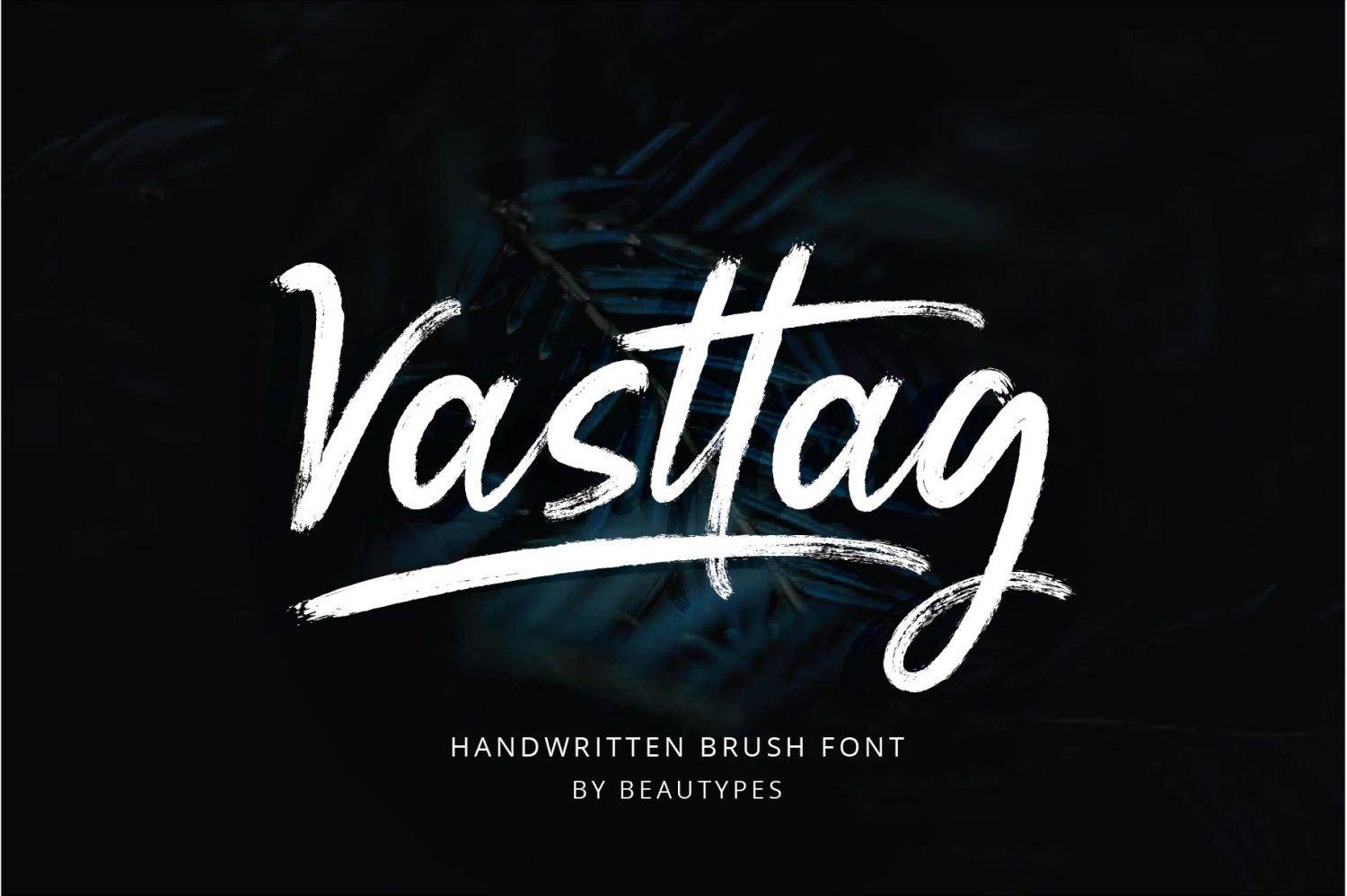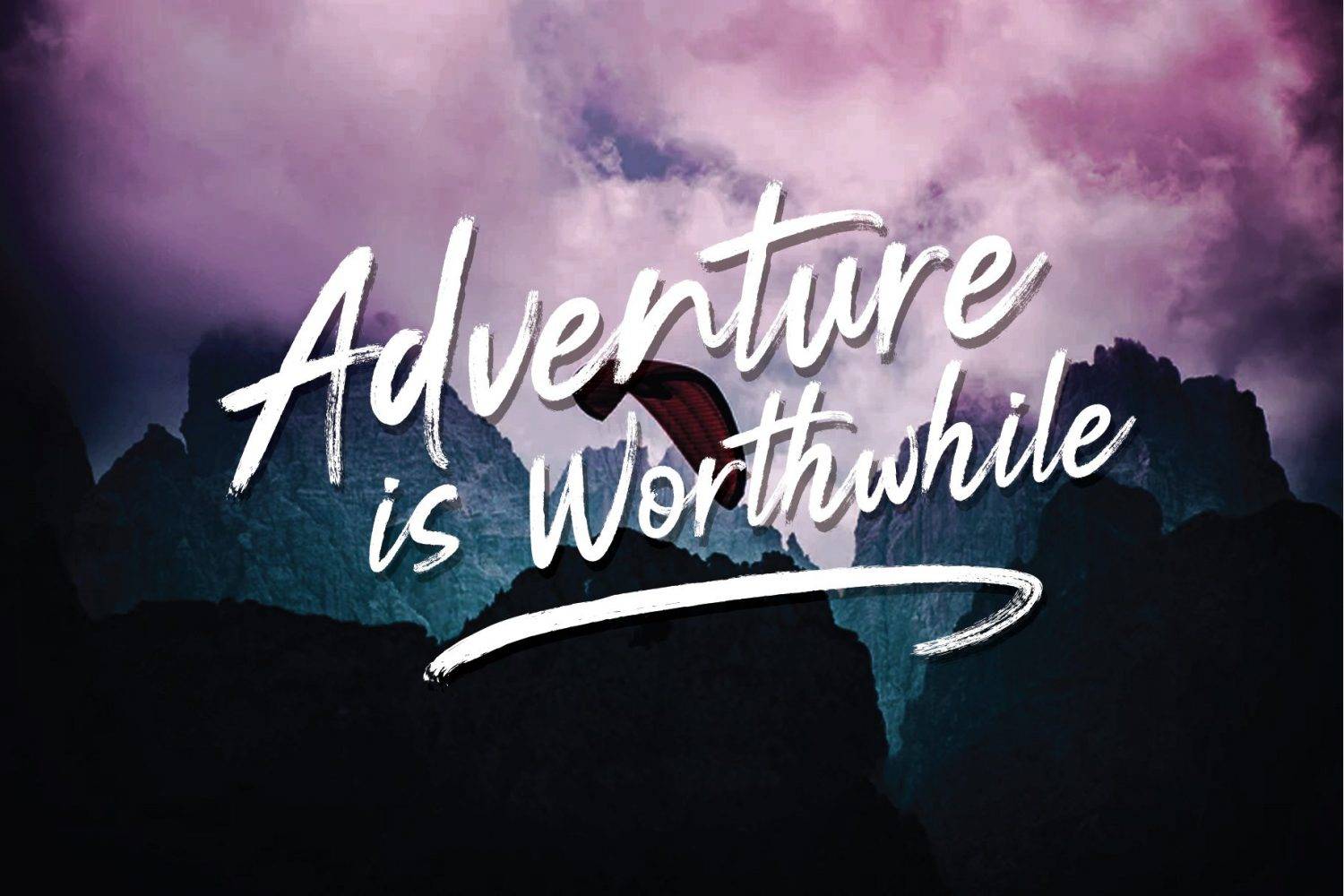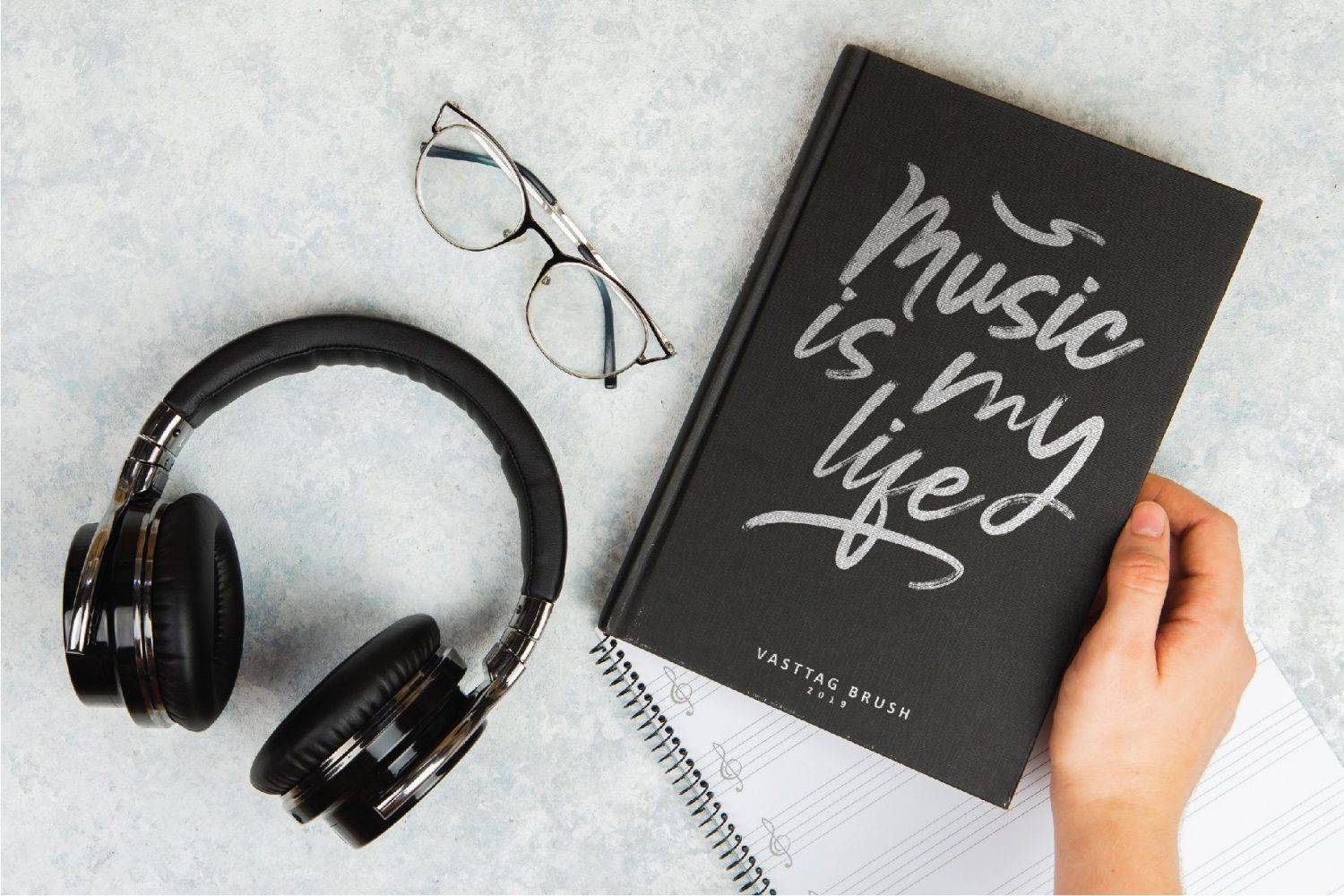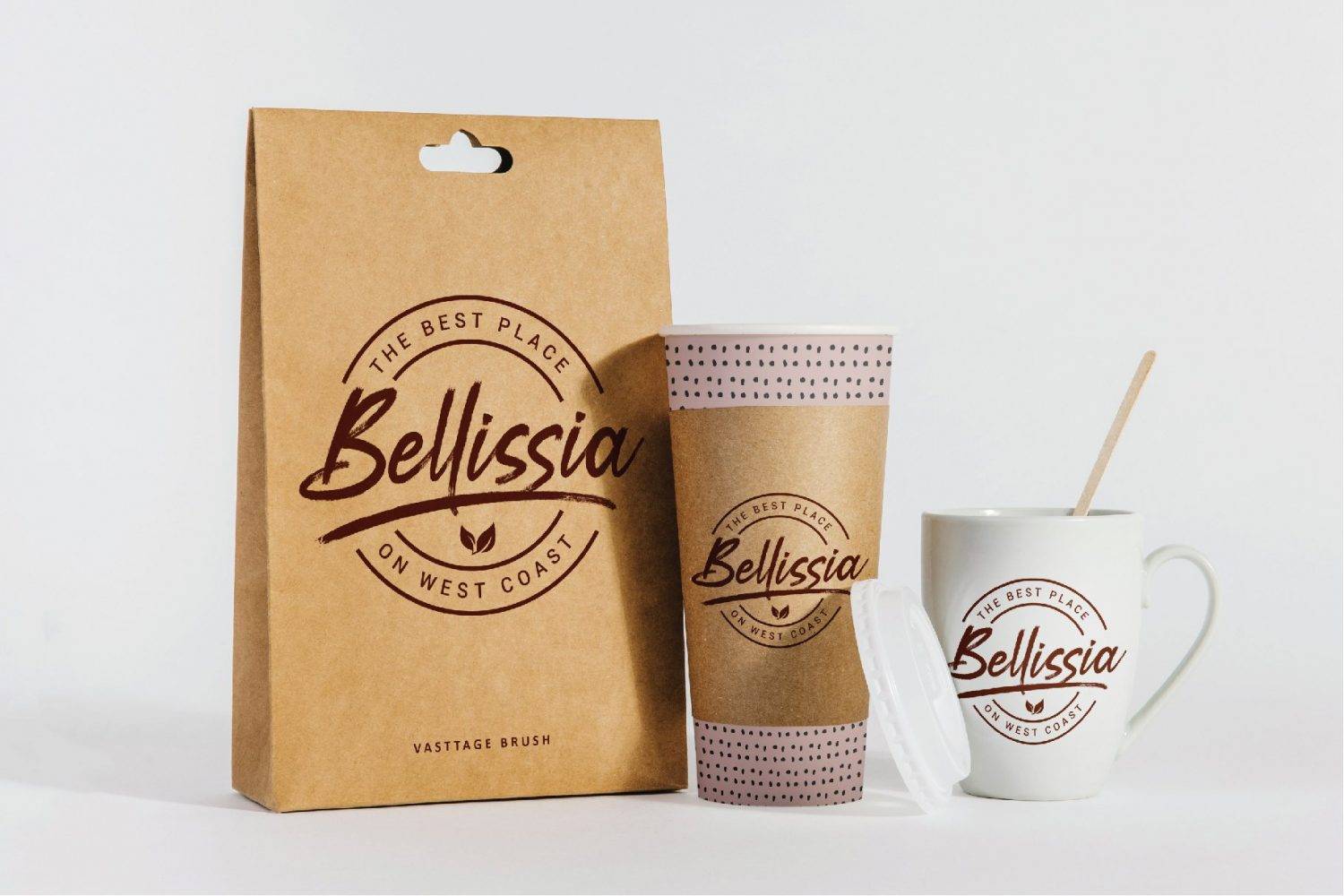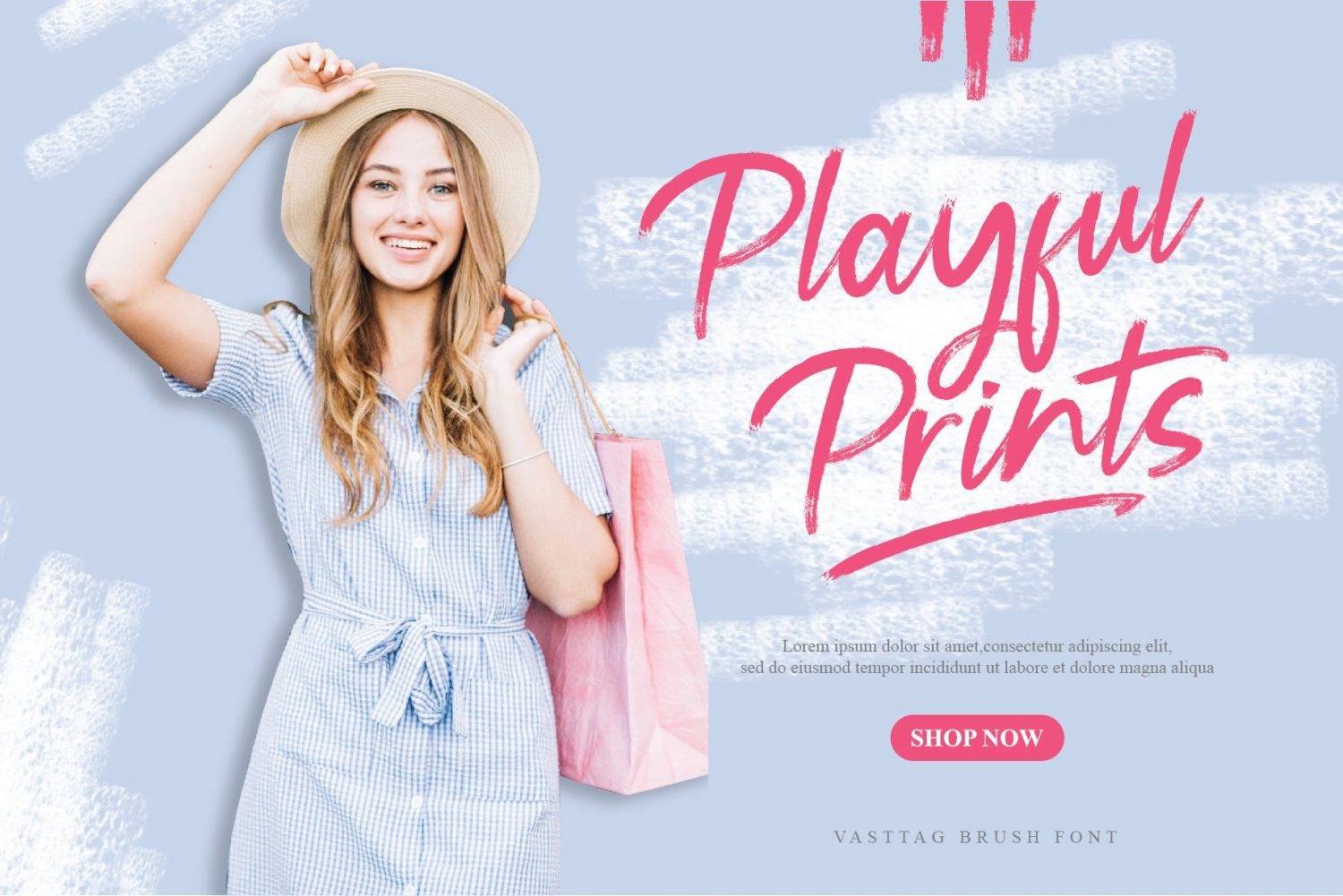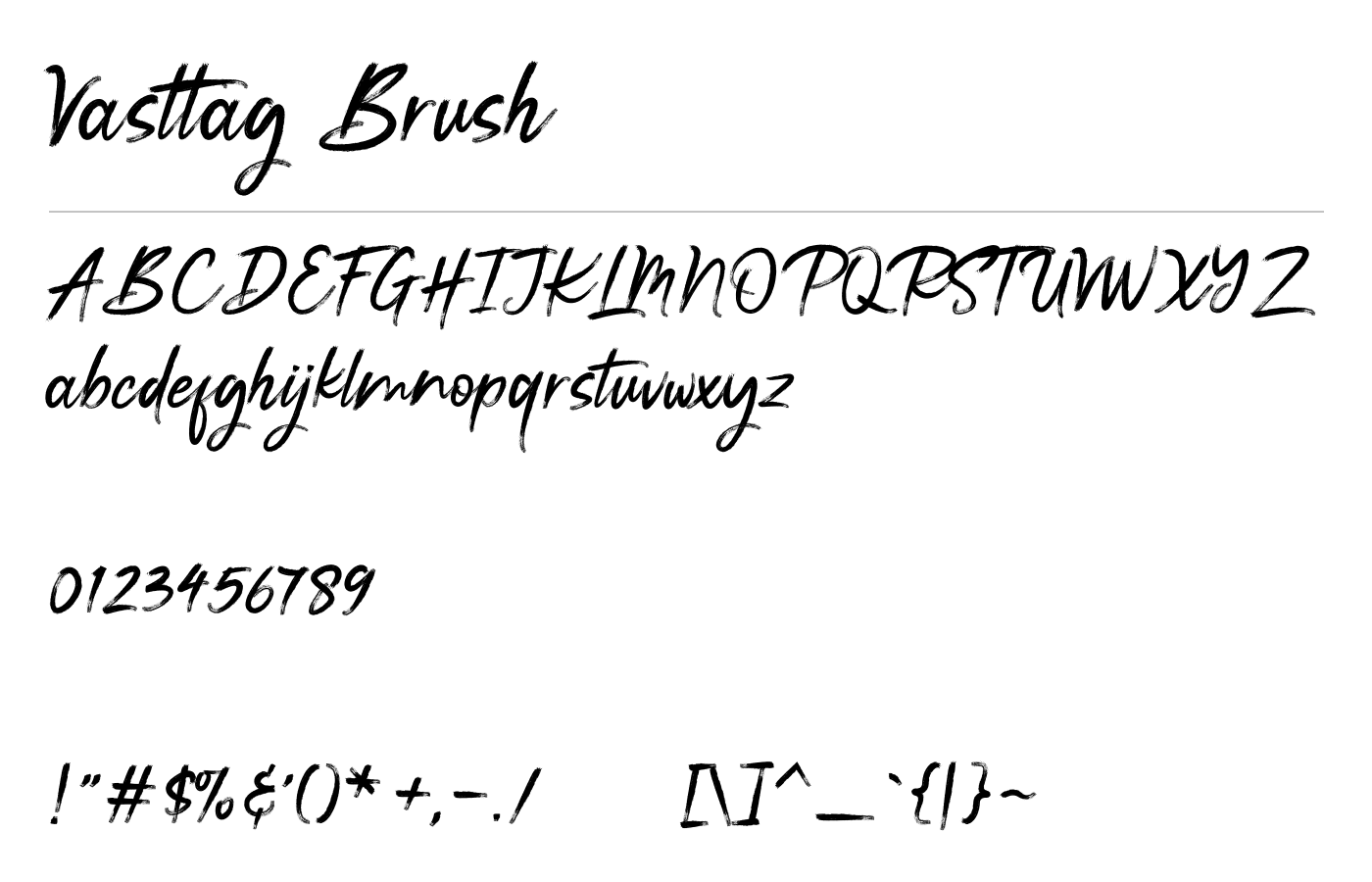
Vasttag Brush is a lively and expressive brush script font that features a textured, hand-painted look with varying stroke thicknesses and a casual, flowing style. Its tall x-height, upright italic feel, and dynamic letterforms make it perfect for creating energetic, creative designs that need a personal, authentic touch. This font works well for branding, packaging, posters, and any project aiming for a handcrafted, artistic vibe.
Vasttag Brush Font
About Vasttag Brush Font
| Font family | Vasttag Brush Font |
| Designer | Rizaldi Wandani |